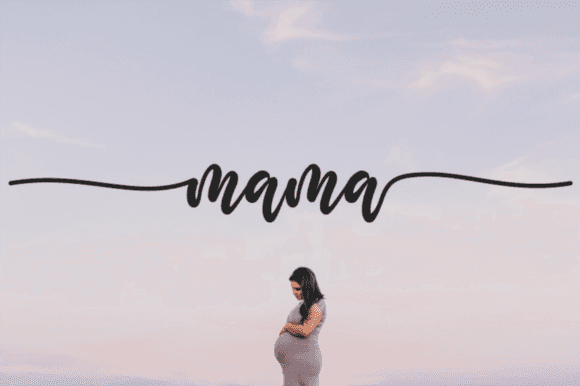
Mama Font for Headlines, Posters and Branding Projects
The Mama Font is a character-rich typeface designed to stand out in bold headlines, promotional posters, and personal branding. Its confident strokes and clean curves offer a contemporary twist on classic display lettering, making it perfect for both digital and print creatives.
As a FONT file, it provides scalable, crisp text output across platforms, supporting workflows in signage, logo design, and product packaging. With wide letterforms and strong readability, it's well-suited for emotion-driven themes, especially those centered around motherhood, empowerment, or community.
- Posters, banners, and billboard-style designs
- Logos and branding for mom-centric businesses
- Shirts, totes, and apparel graphics
- Social media quote cards and marketing visuals
- Stickers, labels, and product mockups
- Bold personality and smooth readability
- Perfect for powerful messaging and mom-themed designs
- Highly versatile across print and digital formats
A: Absolutely. Its strong character makes it perfect for memorable branding and logo identity.
A: Yes, the bold style and clarity make it ideal for quote cards, profile branding, and campaign visuals.
A: Definitely. The name and design make it perfect for shirts, mugs, and other mom-focused products.